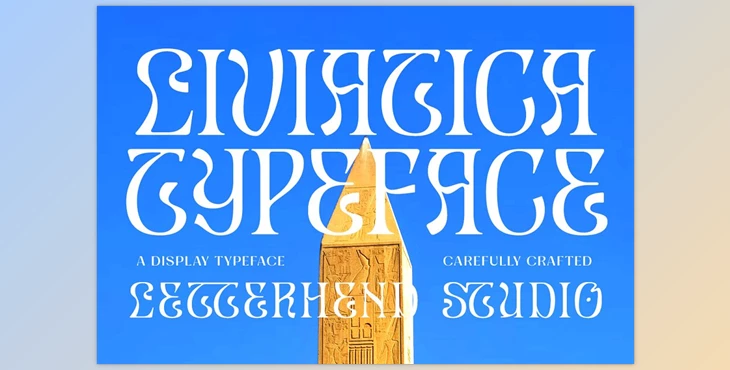
LIVIATICA – Display Font - MyFonts: Liviatica is an elegant serif with a distinctive letterform. This font has been designed meticulously to ensure top quality and a luxury feel. The letterform of this font is distinct and stands out better than the typical serif fonts. It is ideal for logos and headlines, tittle as well as other formal formats like labels, invitations as well as magazines, logos, books and wedding/greeting cards packaging, fashion, makeup, stationery novels, labels, or any kind of advertising.
Some great features of LIVIATICA – Display Font:
- Numbers and punctuation
- multilingual
- Ligatures
- Alternate names
- PUA encoded